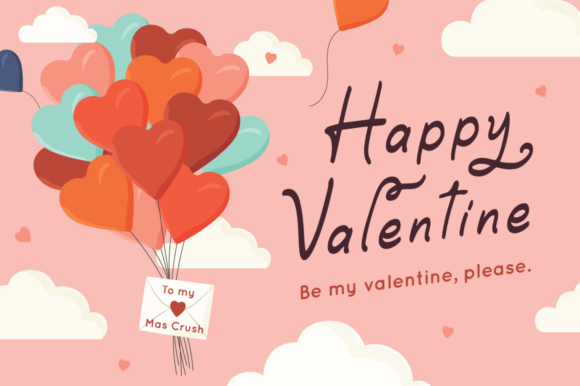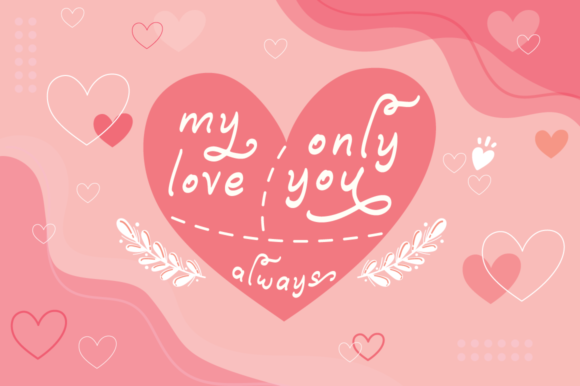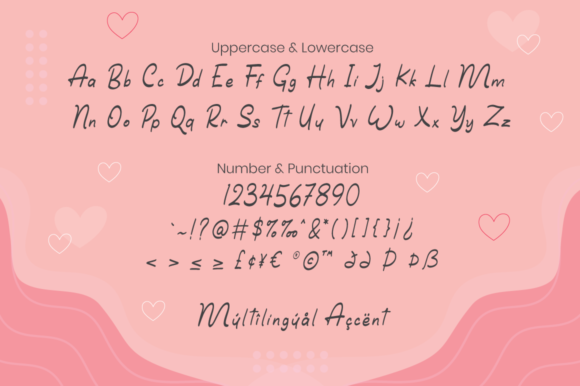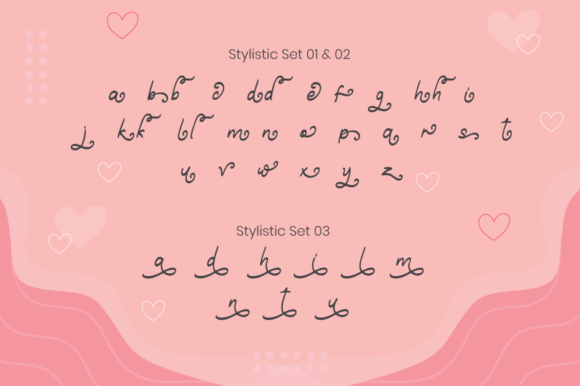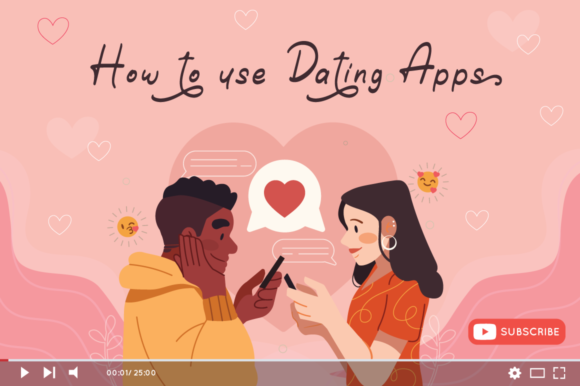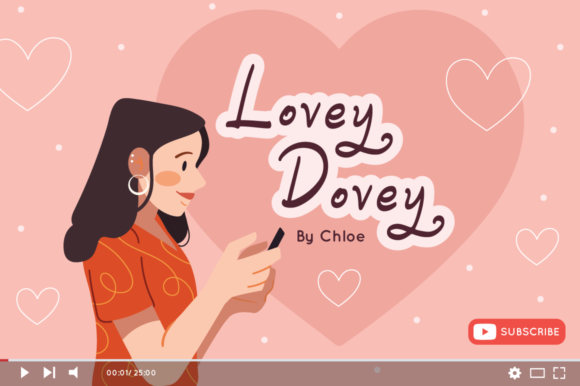
Yalindha Font
About Yalindha Font
Yalindha is a lovely script font. It looks stunning on wedding invitations, thank you cards, quotes, greeting cards, logos, business cards and every other design which needs a customized touch.